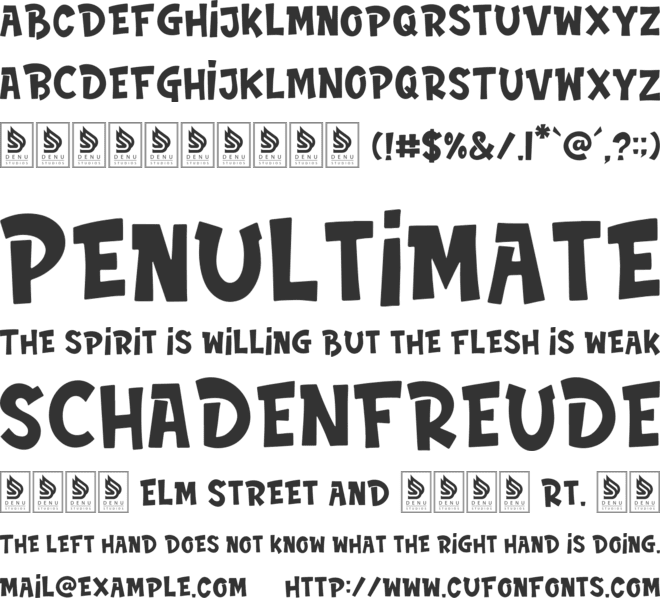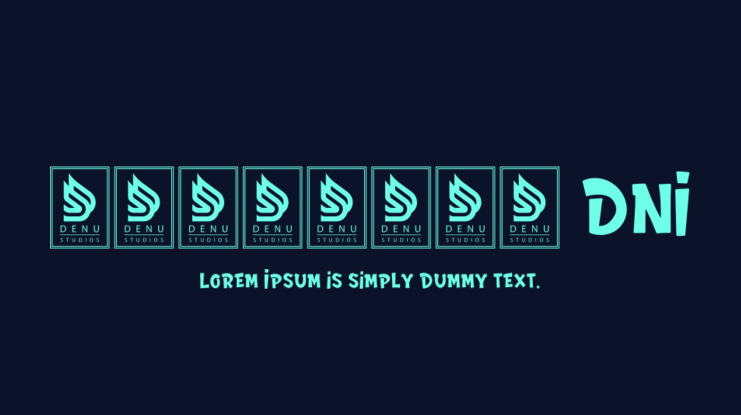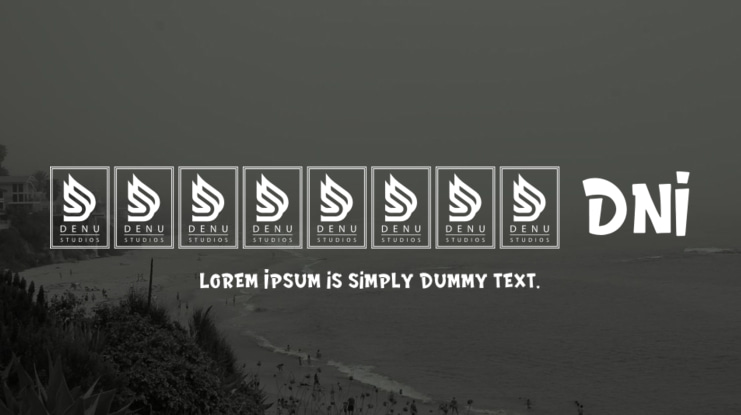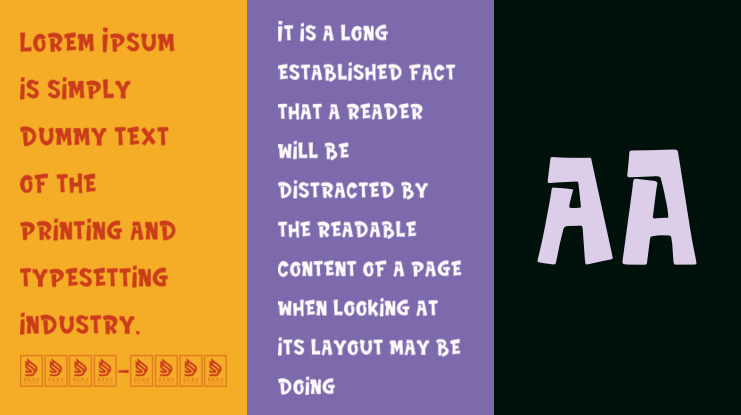
Dede Nugraha
Lovely Rushco | Bold Playful product packaging, mugs, quotes, posters, shopping bags, t-shirts, book covers, name card, invitation cards, greeting cards, label, photography, watermark, special events, and all your other lovely projects that need a Bold Playful taste.